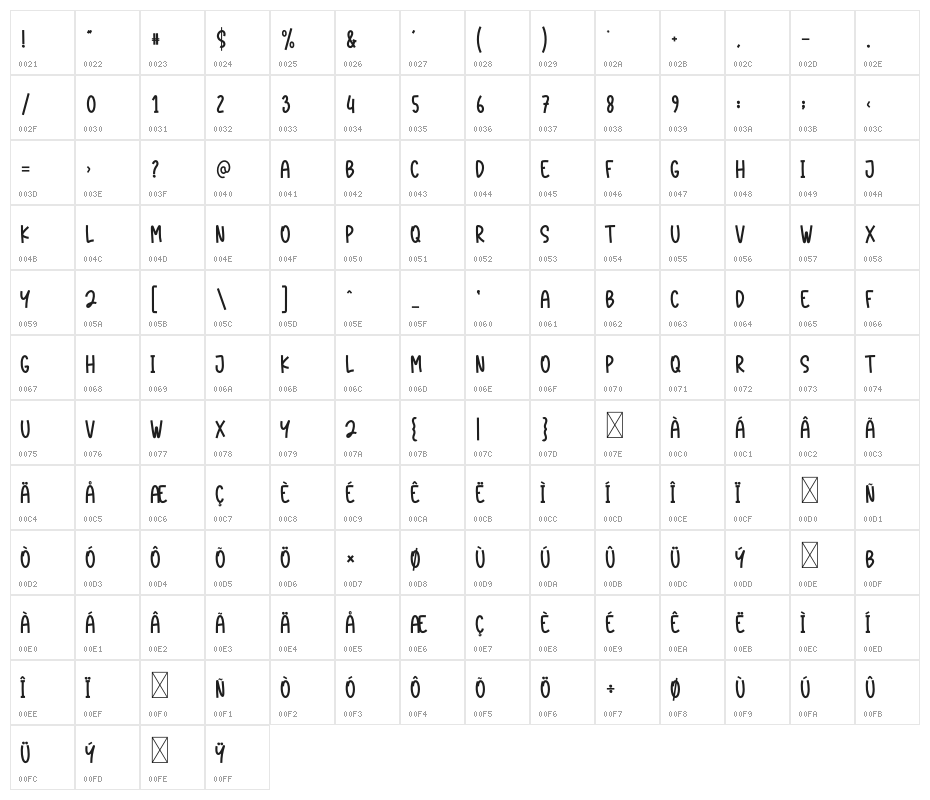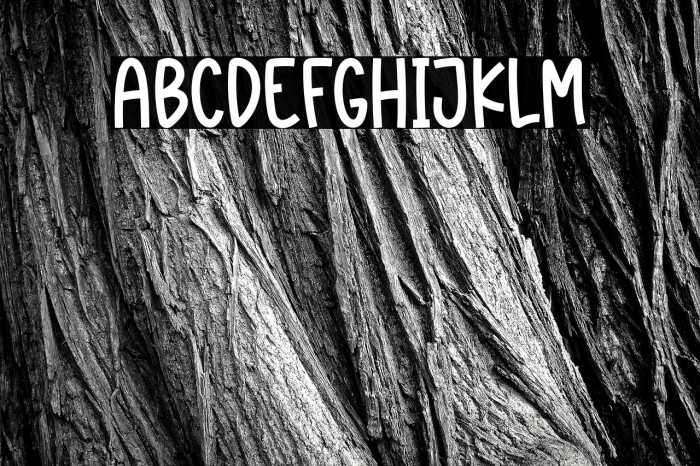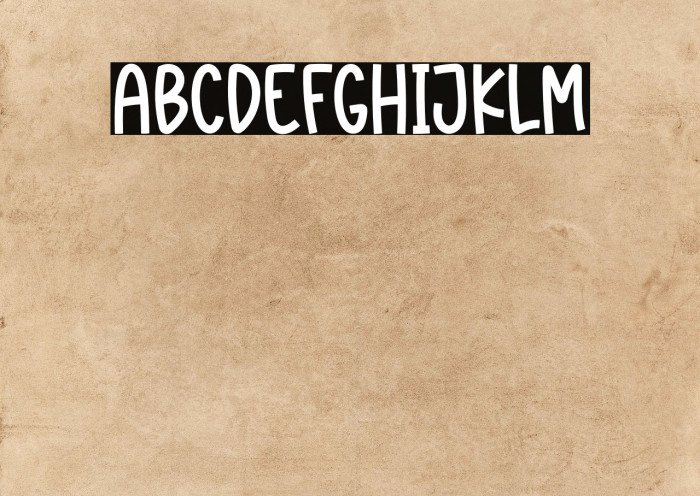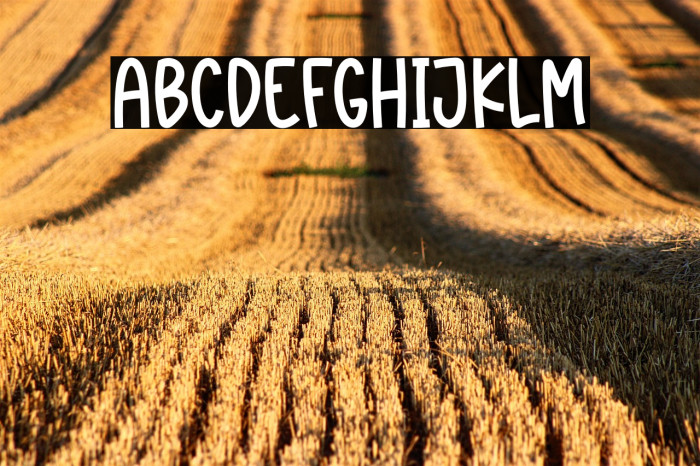
Groovy Babe Font
Groovy Babe Description
This font exudes a playful and casual vibe, characterized by its rounded, slightly irregular letterforms that give it a handwritten feel. The strokes are consistent in weight, providing a uniform appearance across all characters. The uppercase and lowercase letters maintain a cohesive style, with a slight slant that adds to the informal aesthetic. The numerals and special characters are designed to match the overall style, ensuring a harmonious look. This font is ideal for projects that require a friendly and approachable tone.
| Overall Style | Casual, Playful |
| Use Case | Headlines, Informal text, Branding |
| Proposed Projects | Ideal for children's books, casual branding, greeting cards, and playful posters. |